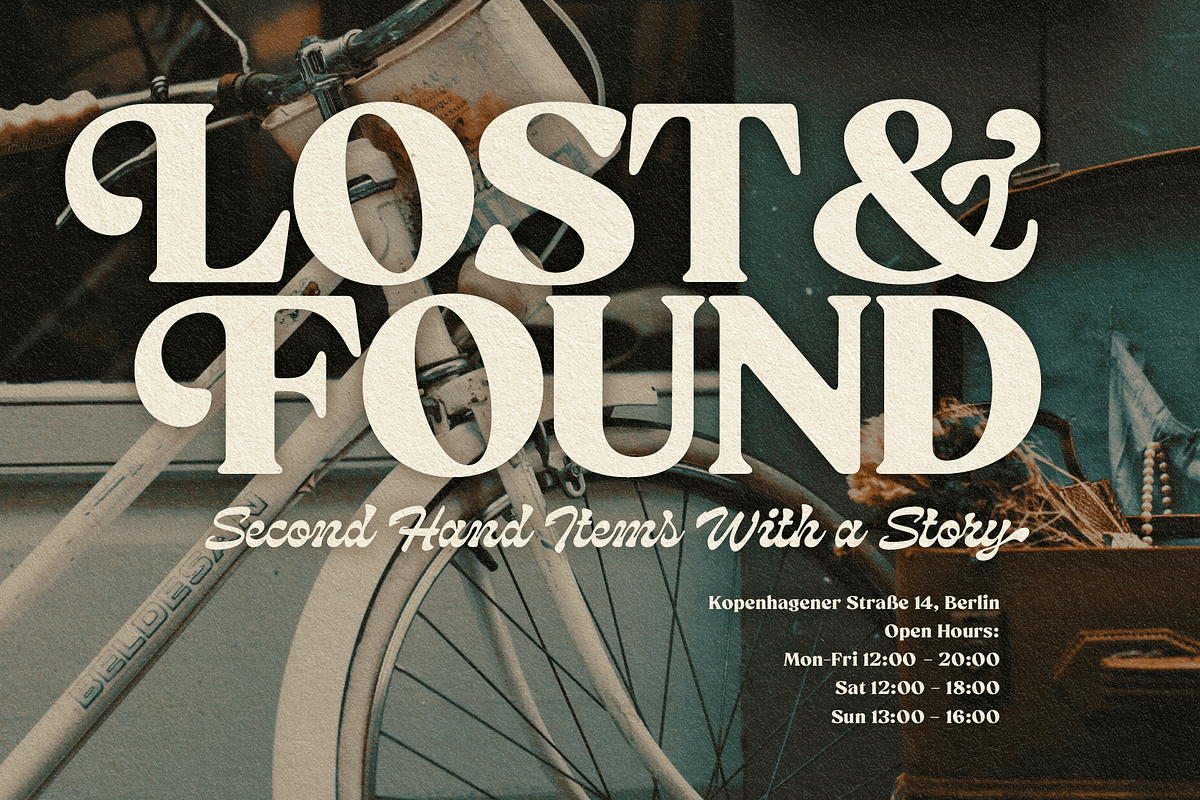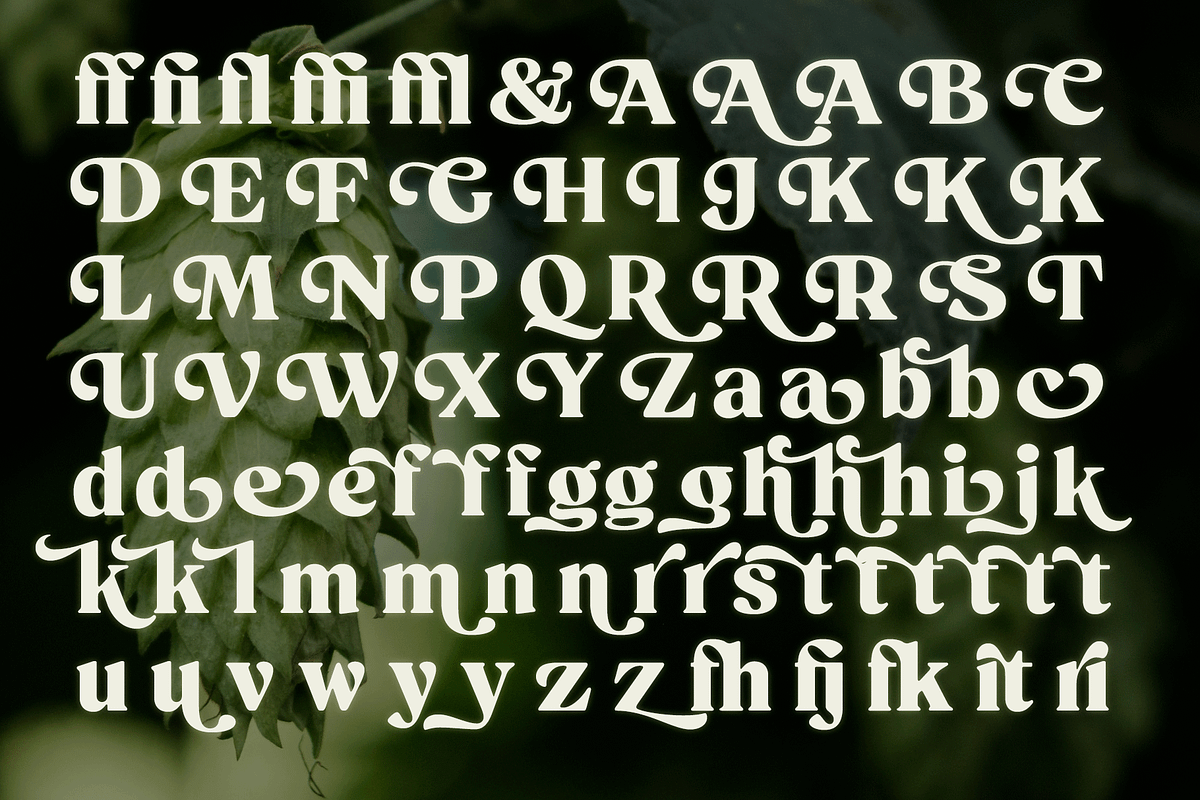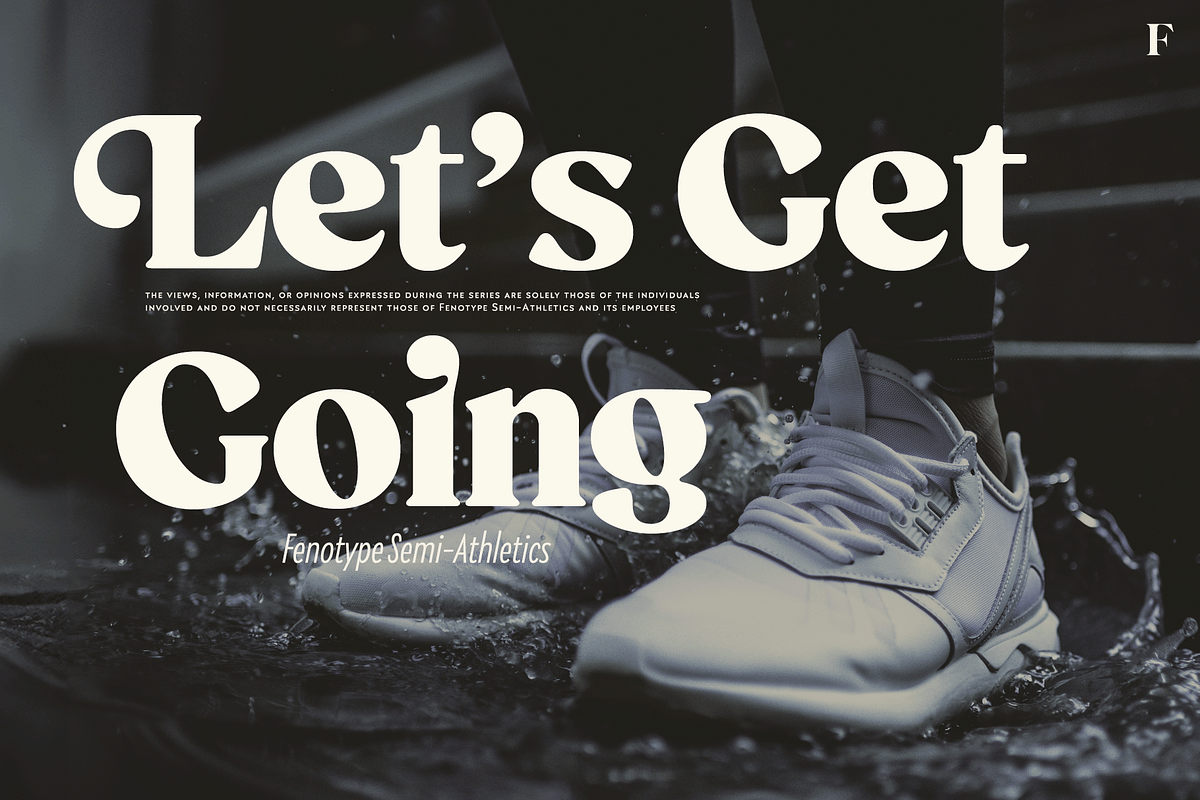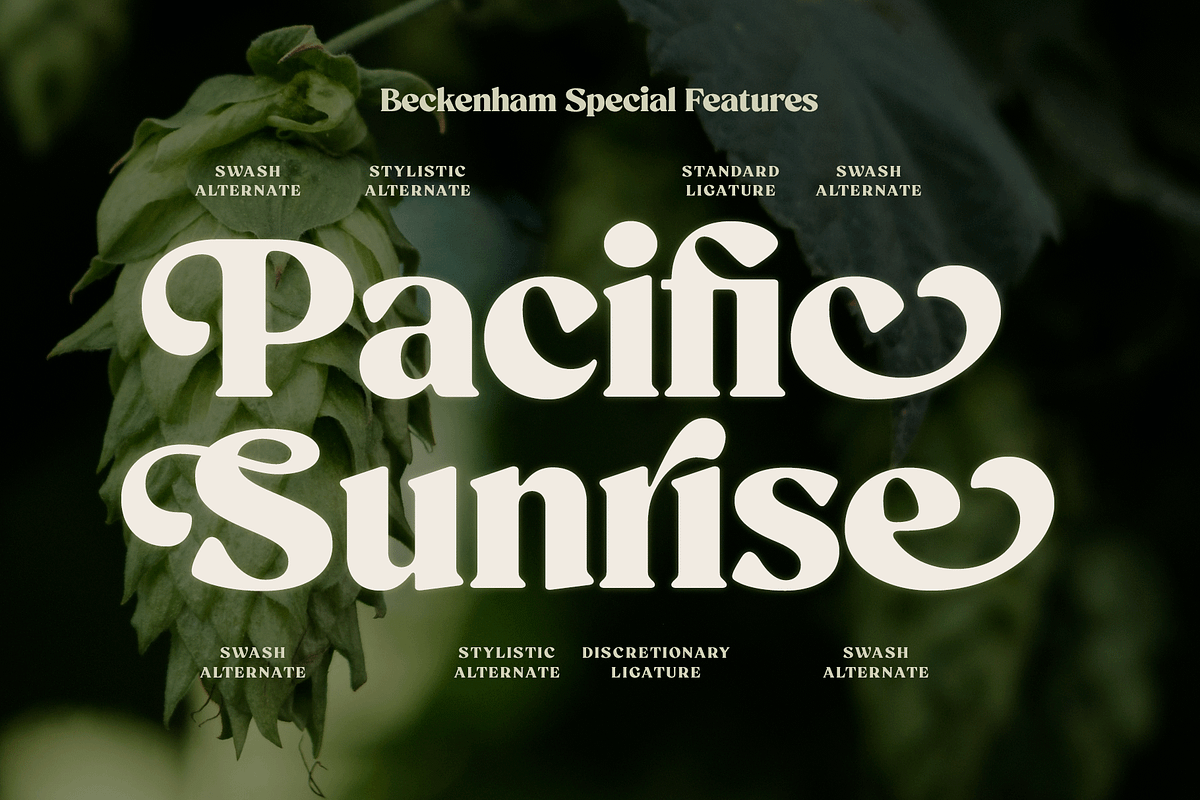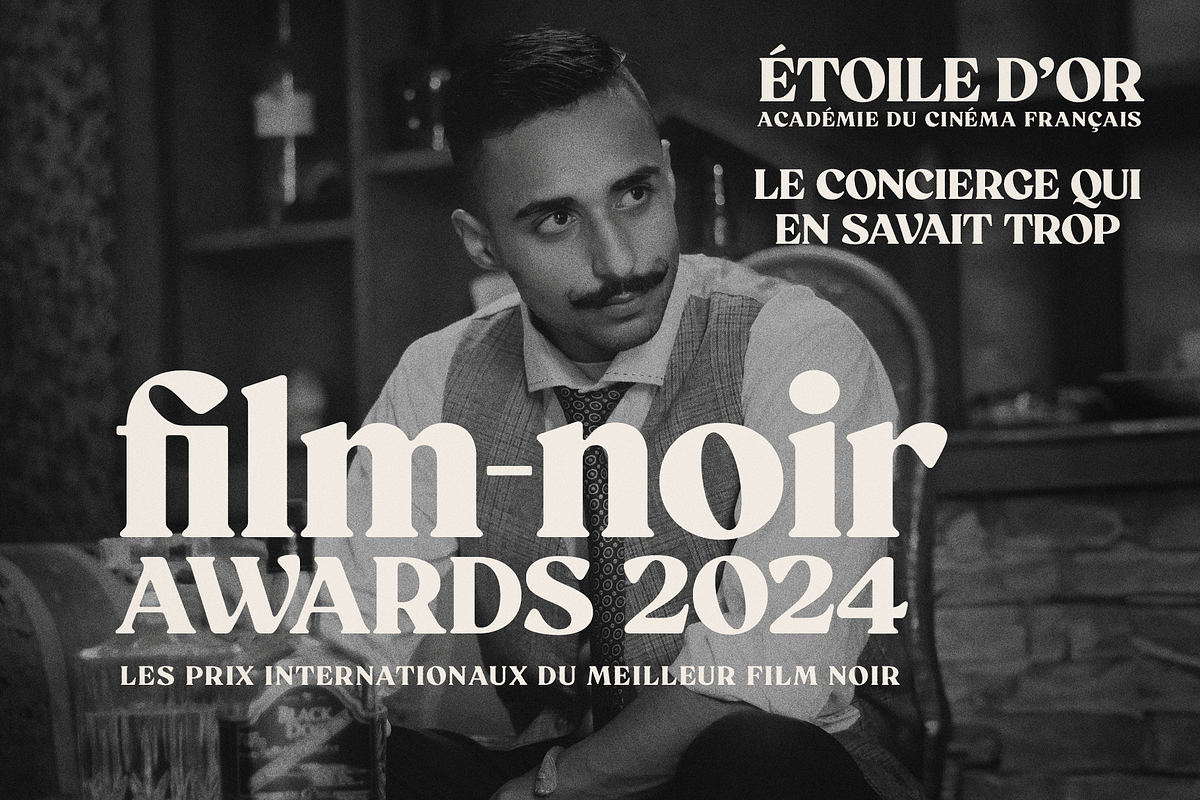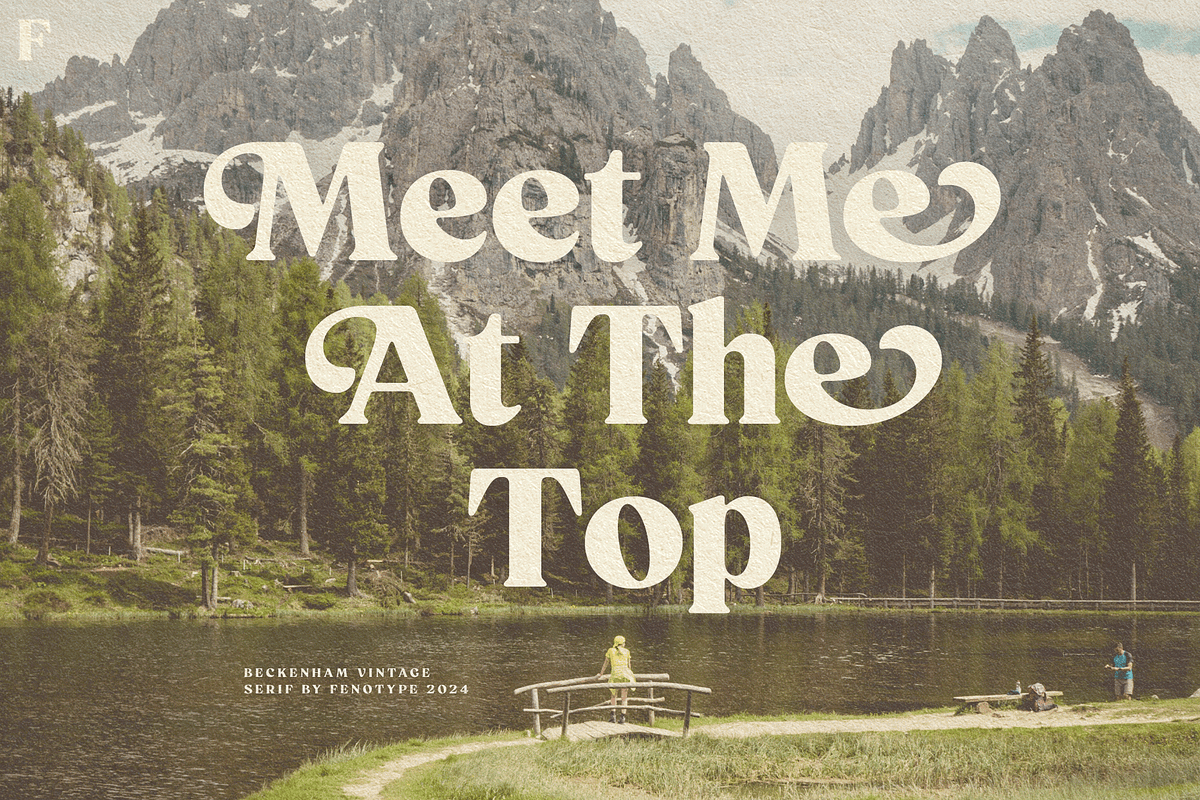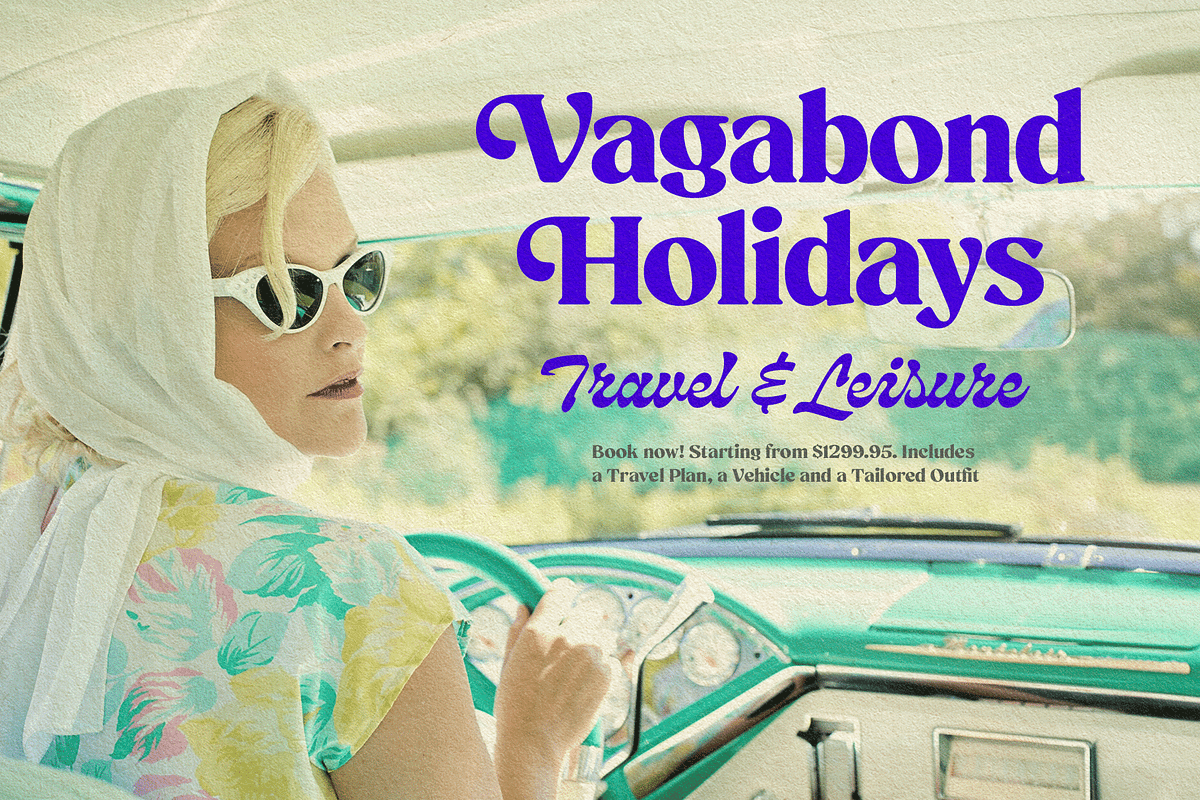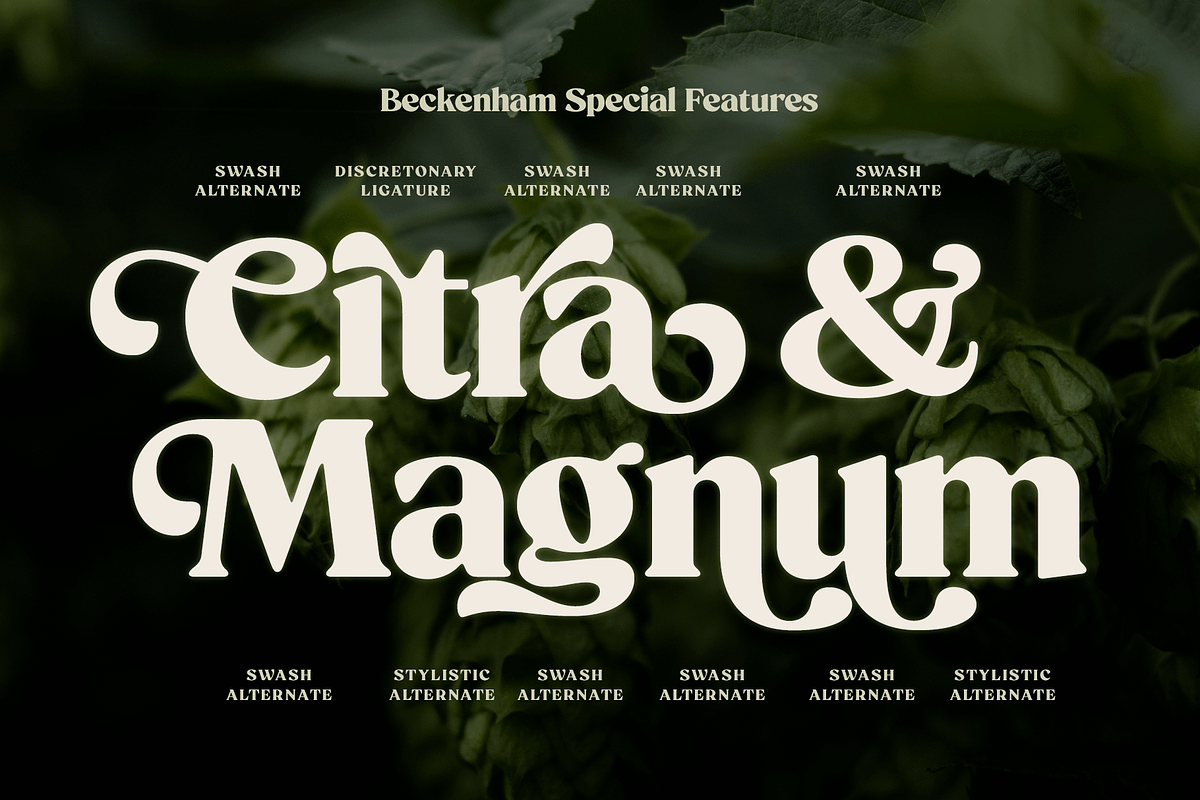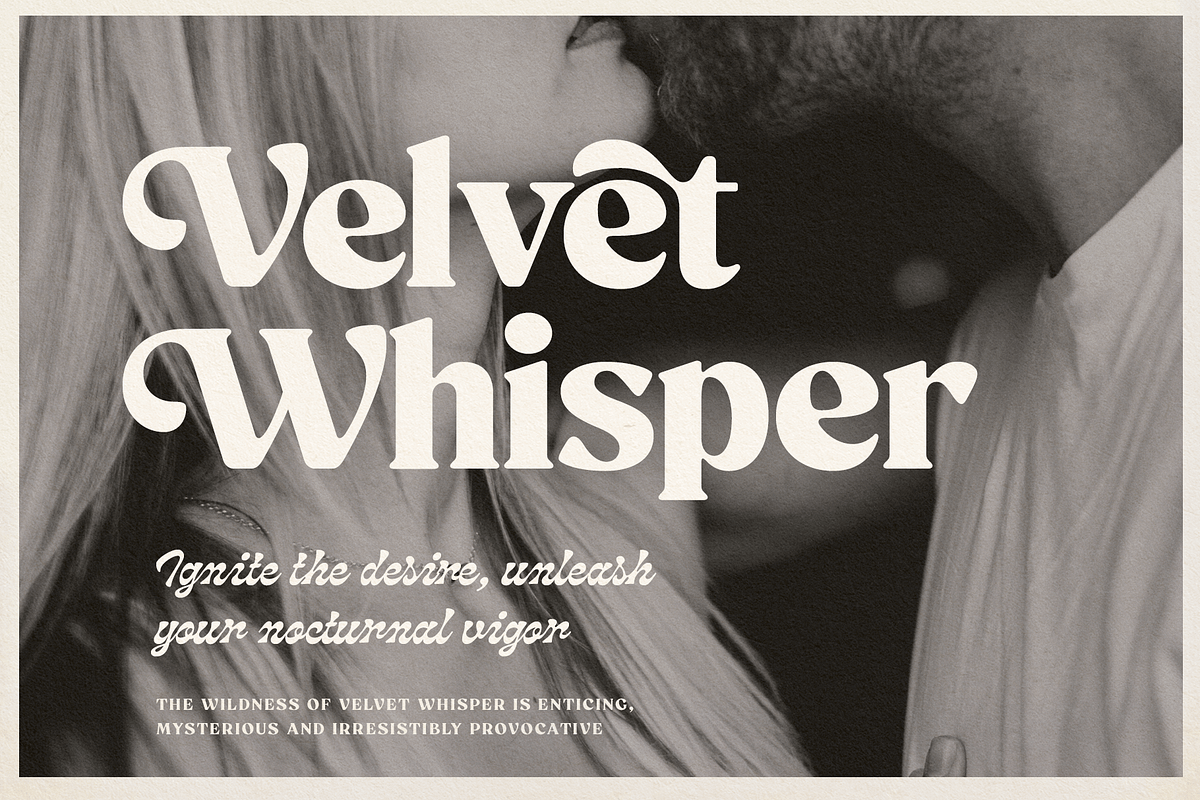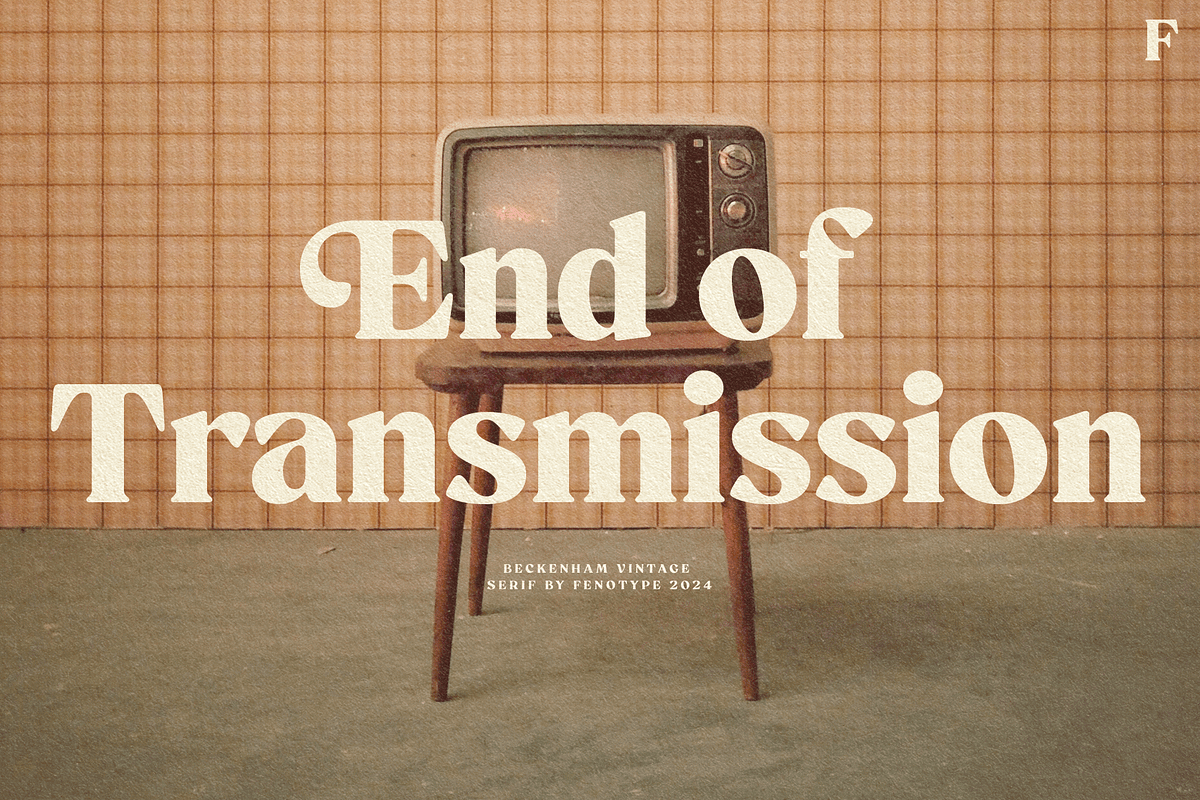
Beckenham Retro Serif
Take a tour to Beckenham: It’s a vintage inspired serif with soft features and a robust character. Full of classy elegance, it invites you to a nostalgic trip into the years when sun always shone in the summer, and winters were draped in snow. Expect nothing short of hearty personal service at the gas station. Take it granted that all the delicacies at the cafeteria are, as goes without saying, hand made and no-one bothers to call it artisanal.
Despite its old-fashioned appearance Beckenham is equipped with plenty of modern OpenType technology: Standard Ligatures to prevent certain letter combinations from colliding, some Discretionary ligatures for fun i_t, i_f, or r_i -combinations, and an array of Swash, Stylistic and Titling Alternates for decorative lettering. Explore for even more variations of lowercase t, set in Stylistic Sets 1-3.